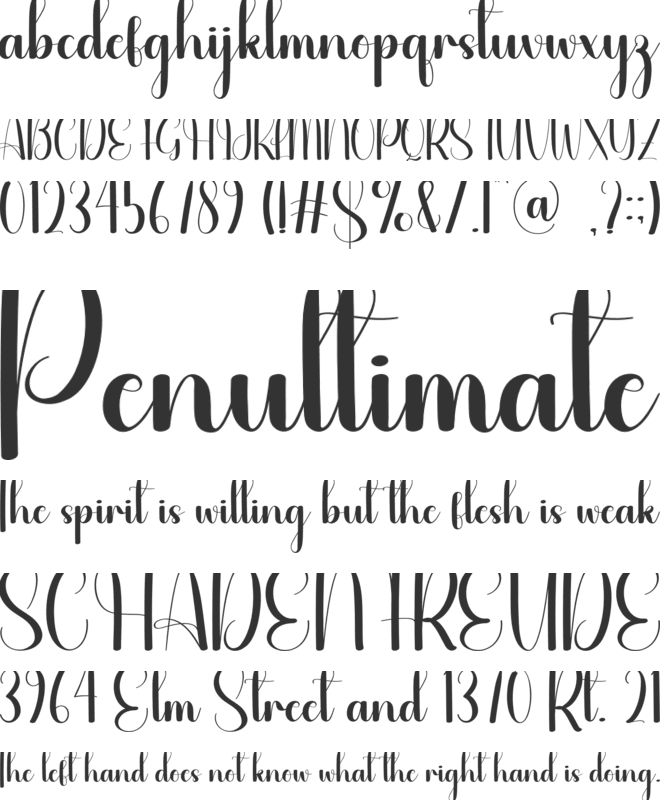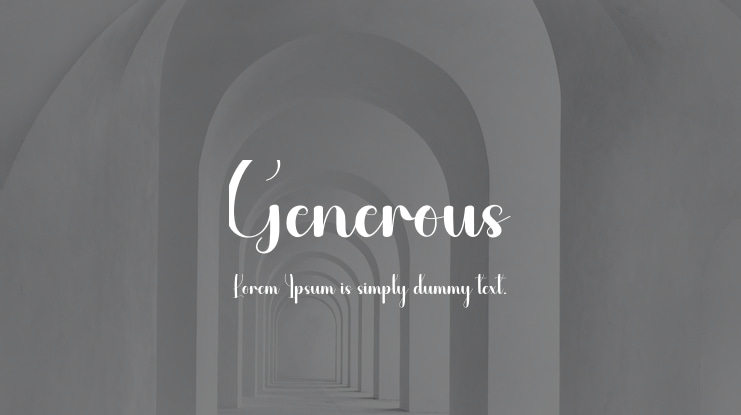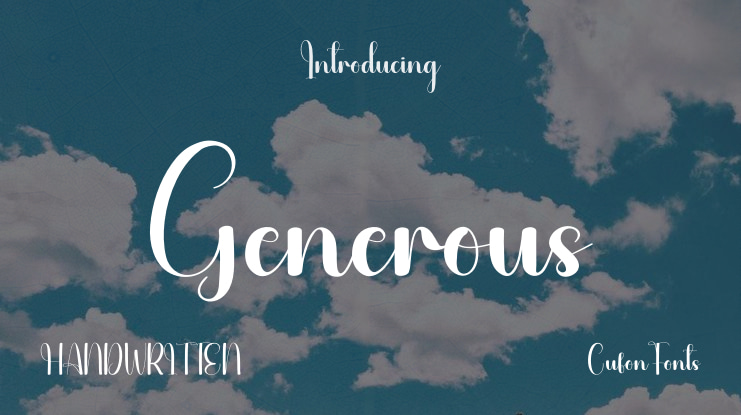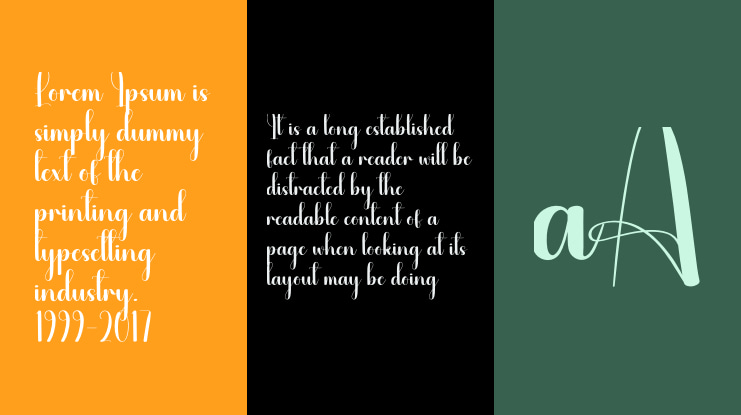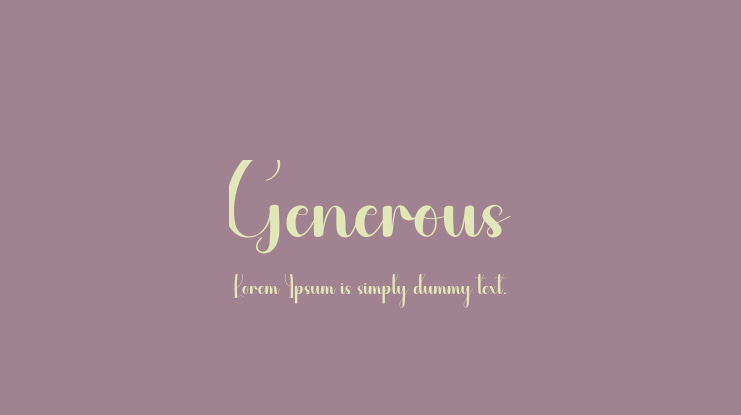
Generous Font
Our latest style letters are perfect for wall displays, wedding invitations, social media post logos,
and any project that requires tasteful handwriting.